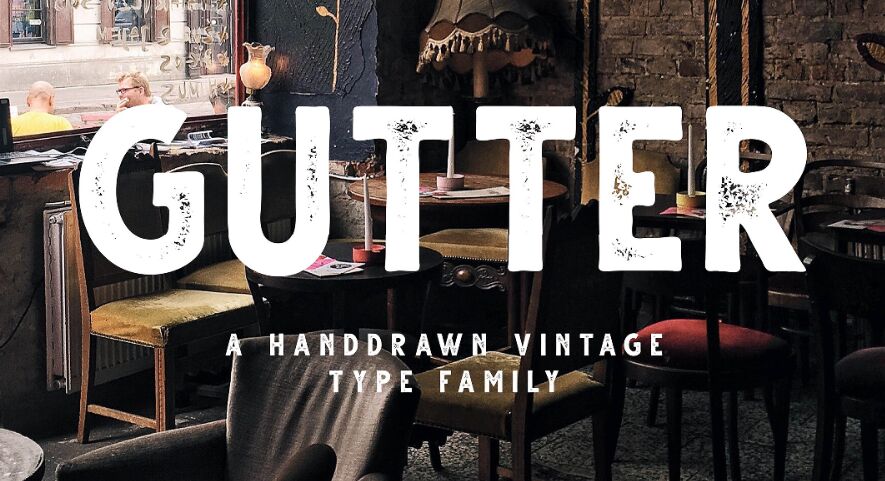
The Gutter Vintage Typeface was generously created and offered for free by Andika Setiawan - download it now to enhance your next project with a professional-grade asset at no cost.